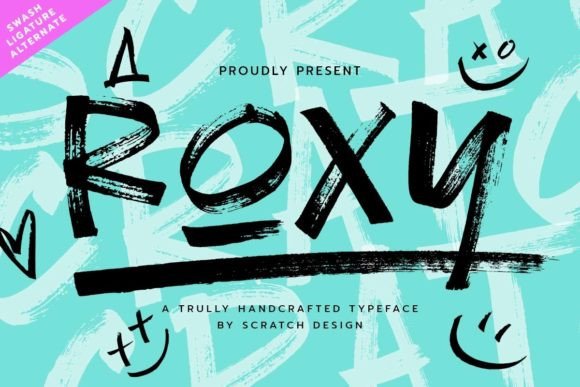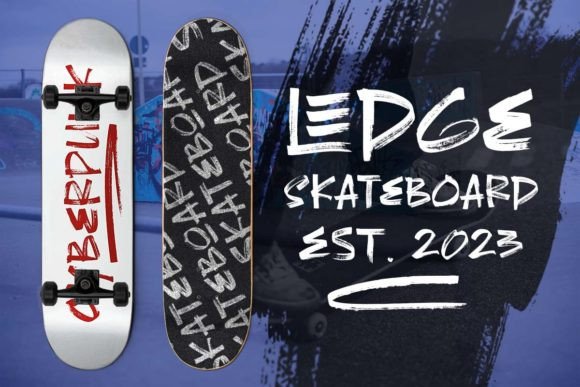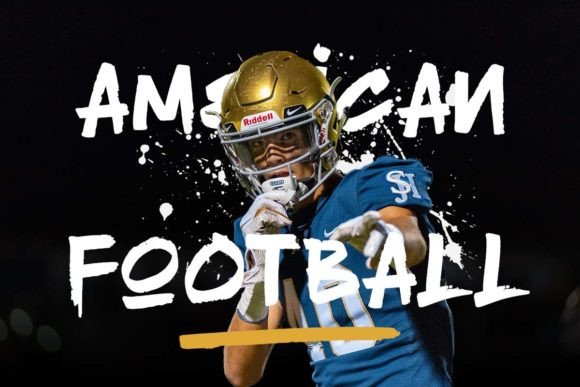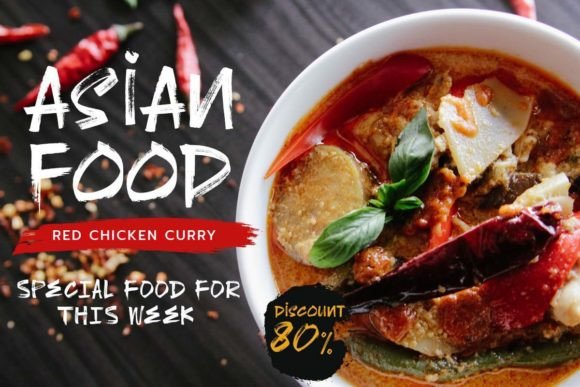
Roxy Font: Bold Hand-Drawn Display Font for Logos & Posters
About the Roxy Font
Crafted with precision, the Roxy Font is ready to bring your ideas to life. This bold, loud, and proud all-caps font was hand-drawn with an accurate marker, maintaining the authentic high-resolution brush detail in each stroke. This font also includes ligatures, multilanguage, and unique swashes, making your design strong and outstanding.
Roxy will be the perfect choice for poster designs, header text, album covers, packaging, product designs, merchandise, logos, advertising & more.
Roxy’s bold, hand-drawn character makes it ideal for headlines, short impactful statements, and branding applications where a strong, assertive voice is needed. It excels in posters, logos, and packaging design, conveying a sense of raw energy and authenticity. However, its all-caps nature and heavy stroke weight make it unsuitable for body text or lengthy paragraphs; readability suffers at smaller sizes.
For a balanced aesthetic, pair Roxy with a clean, minimalist sans-serif like Lato or Open Sans for supporting text. If a more refined look is desired, consider a classic serif such as Garamond or a subtly geometric sans-serif like Montserrat to create visual contrast and sophistication. Avoid pairing it with other overly decorative or highly stylized fonts to prevent visual clutter.
Roxy’s overall personality is bold, rebellious, and slightly edgy, reflecting a brand that is confident, unconventional, and unafraid to stand out. It is well-suited to projects with a strong visual identity, such as street art, music-related designs, or brands targeting a younger, more alternative demographic.
Roxy Font Usage Examples
Roxy Font Example